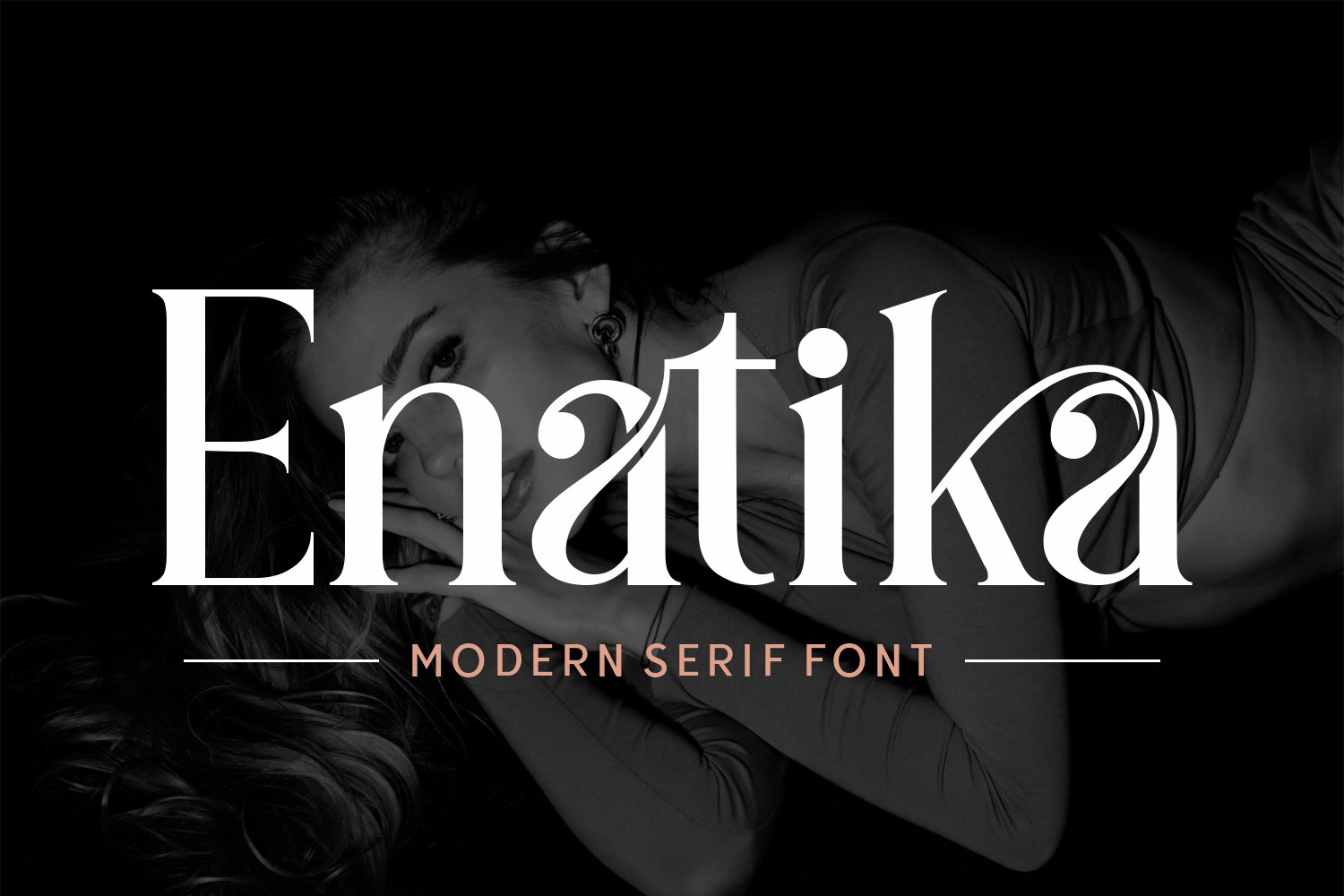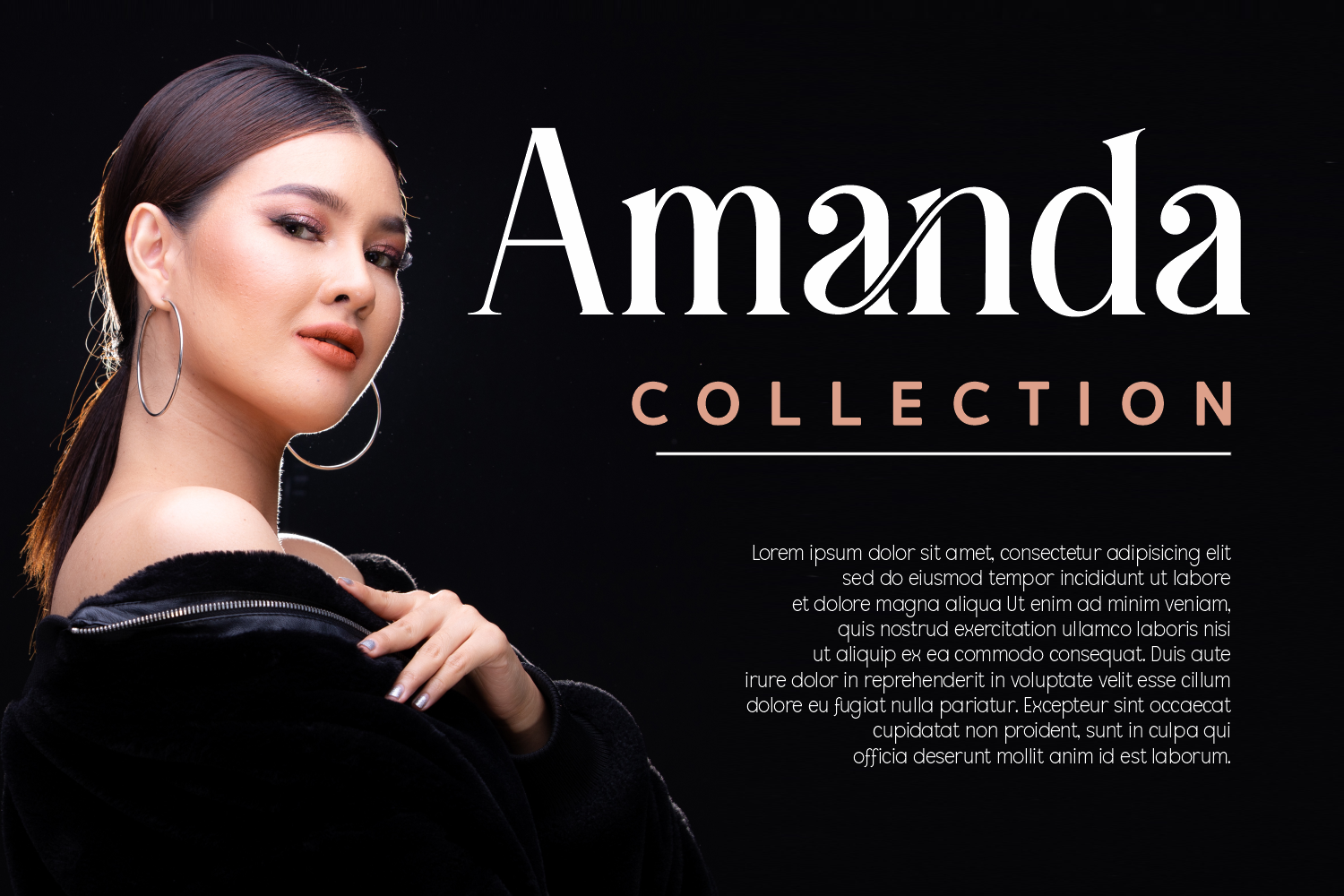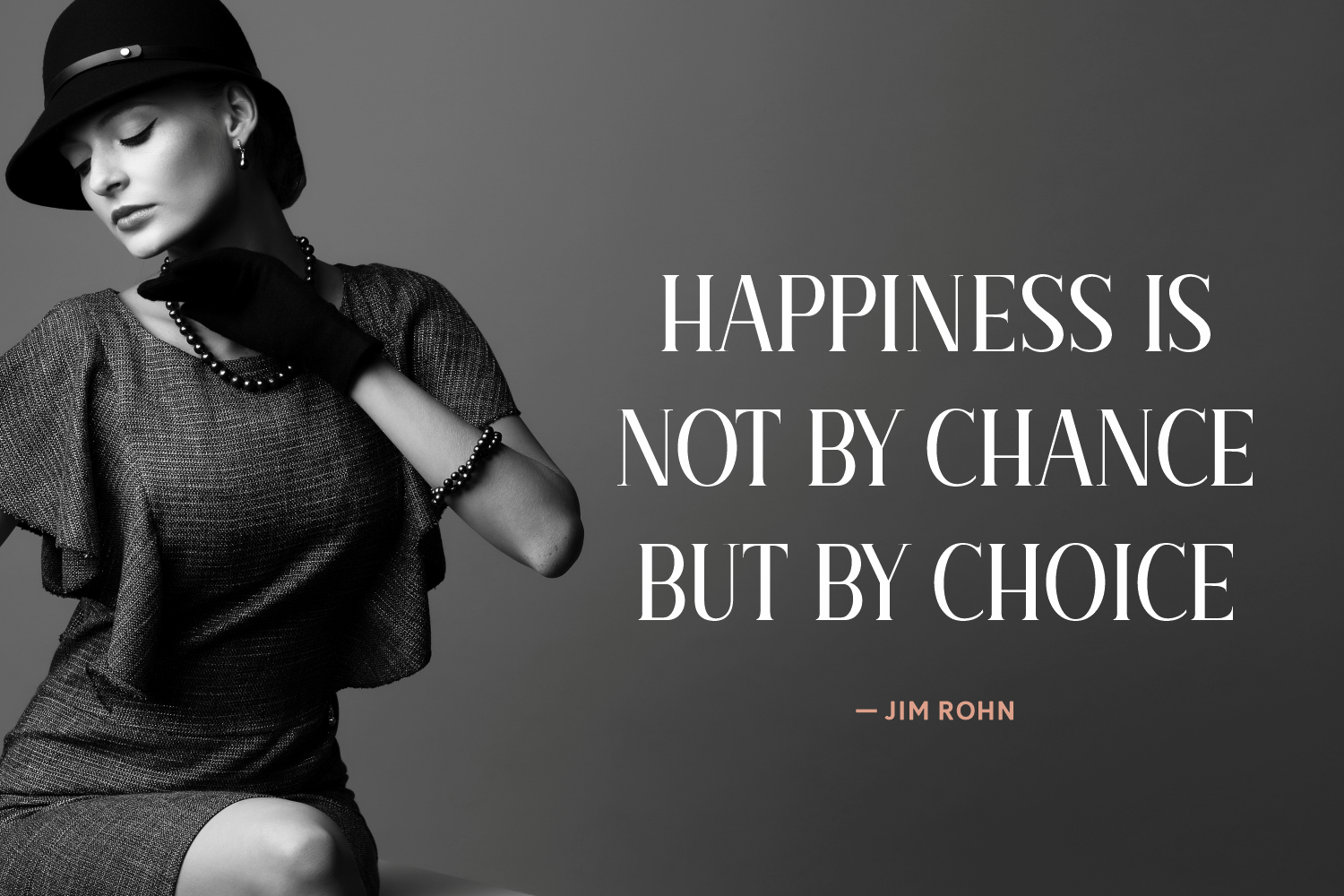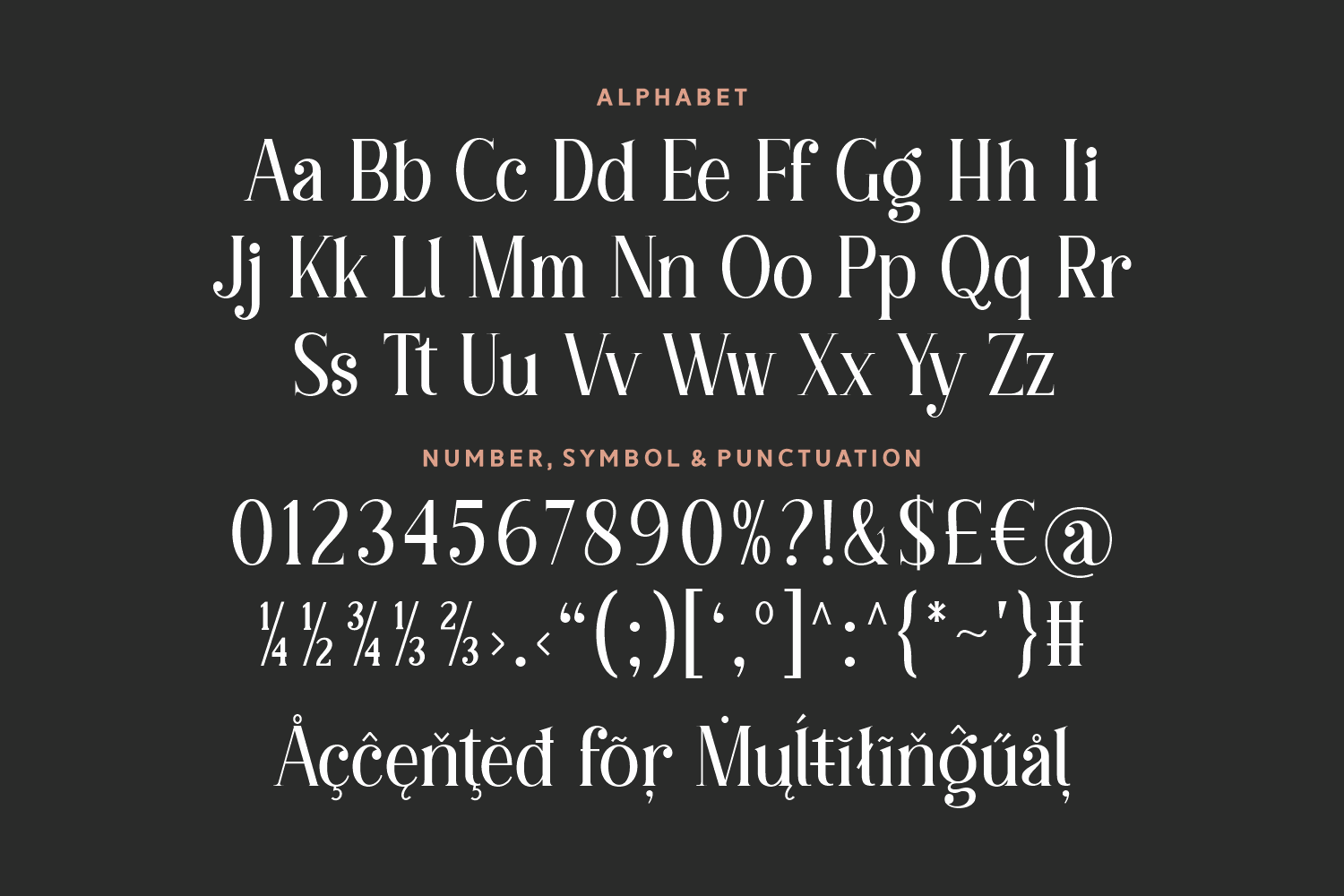
Enatika is a striking modern serif font that exudes sophistication with a hint of artistic flair. Its timeless form meets graceful ornamentation, making every word feel intentional and refined. With full multilingual support and versatile character sets, Enatika brings beauty and boldness to any creative project.